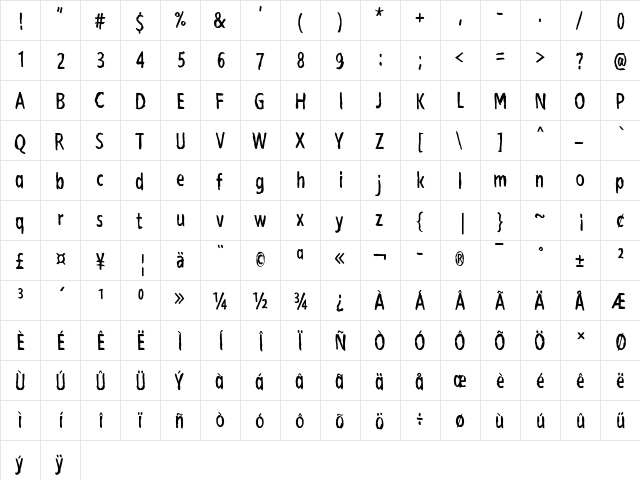
Bubu Ghost Regular
Design Context for Bubu Ghost Typeface
Bubu Ghost is a composed and adaptable typeface that performs quietly and consistently across a wide range of design contexts.